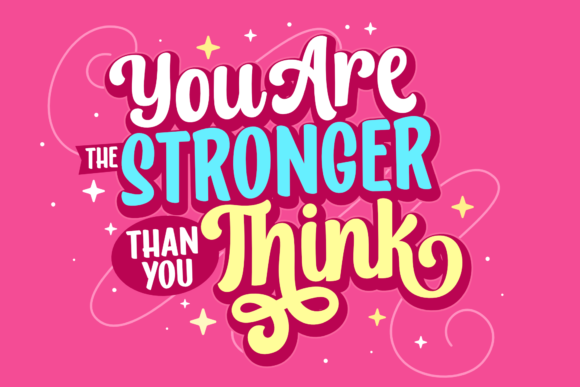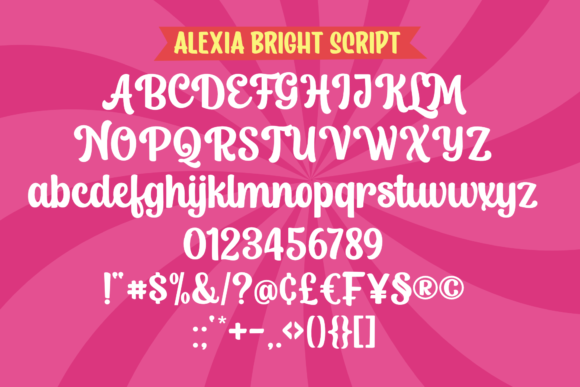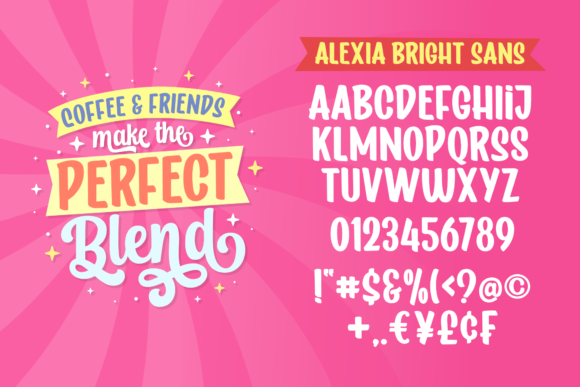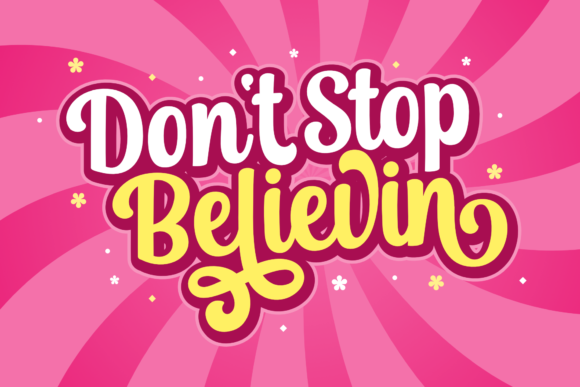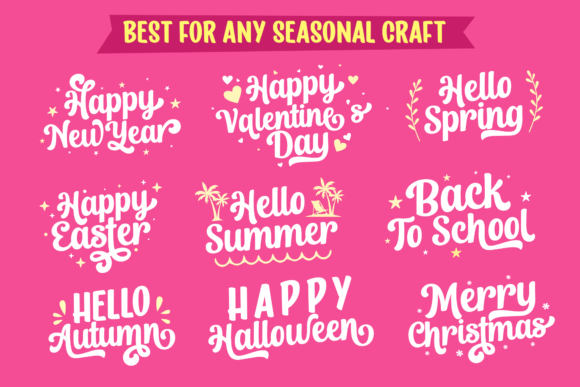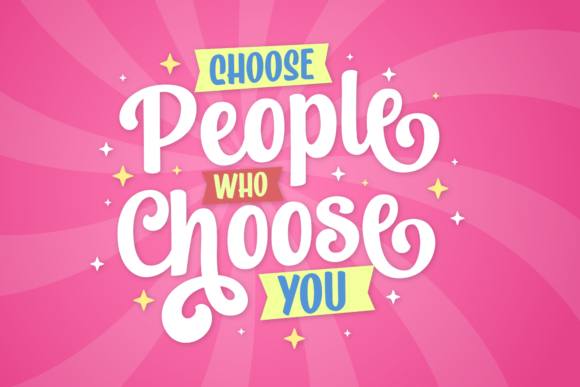
As a designer, there’s nothing quite like the thrill of brainstorming a new idea and watching it come to life. You’re scrolling through your favorite font websites, searching for the perfect script to match your vision. And then, you stumble upon it – Alexia Bright Font, a delicate, elegant, and flowing handwritten font that’s sure to take your design to the next level.
This beautiful font is more than just a pretty face; it’s a versatile tool that can elevate any design project. With its well-balanced characters and PUA encoding, you can easily access all of the glyphs and swashes, giving you endless possibilities for customization. Whether you’re creating a wedding invitation, a logo, or a marketing brochure, Alexia Bright Font is the perfect addition to your design arsenal.
Alexia Bright Font Key Features
- Unique Characteristics: The font features a bright and modern design with rounded edges, making it suitable for use in digital media and advertising.
- Font Style: Alexia Bright Font is a sans-serif font with a friendly and approachable feel, ideal for use in body text and headings.
Alexia Bright Font Review
I recently had the chance to work with the Alexia Bright Font, and I must say, it’s a delightful addition to any design project. Here’s what I loved about it:
- ✨ Unique and elegant style: Alexia Bright has a distinct flair that sets it apart from more common fonts. It’s perfect for adding a touch of sophistication to headings or titles.
- ✨ High legibility: Despite its stylish appearance, Alexia Bright remains highly readable, even at smaller font sizes.
- ✨ Versatility: This font works well in both digital and print applications, making it a great choice for a wide range of projects.
Of course, no font is perfect, and Alexia Bright has a few limitations:
- ⚠️ Limited font sizes: While Alexia Bright looks great at most font sizes, it can become a bit pixelated at very small sizes.
- ⚠️ May not be suitable for body text: Due to its elegant style, Alexia Bright is best used for headings and titles rather than body text.
Overall, I’m really impressed with the Alexia Bright Font. It’s a beautiful and versatile font that can add a lot of visual interest to any design project. Just be mindful of its limitations, and it’ll be a great addition to your design toolkit.
For a more polished look, use Alexia Bright Font for headings and pair it with a clean sans-serif font for body text.
For a more dramatic effect, use Alexia Bright Font for titles and use bold or italic styles to add emphasis.
For a more professional look, use Alexia Bright Font for headings and body text, and adjust the font size to create a clear hierarchy.
Use Alexia Bright Font for:
- Editorials and fashion magazines.
For a more elegant look, pair Alexia Bright Font with a clean and simple background, and use a limited color palette.
Comparison to Alexia Bright: While both fonts are elegant and sophisticated, Playfair Display is more ornate and luxurious, with a more dramatic flair. Alexia Bright is more refined and subtle, making it a better choice for designs that require a more understated look.
Didot Font
Comparison to Alexia Bright: While both fonts are elegant and sophisticated, Didot is more classic and refined, with a more subtle flair. Alexia Bright is more modern and refined, making it a better choice for designs that require a more contemporary look.